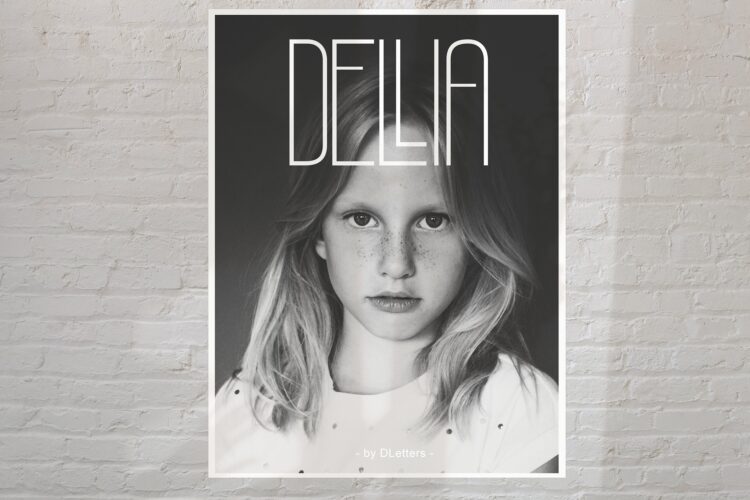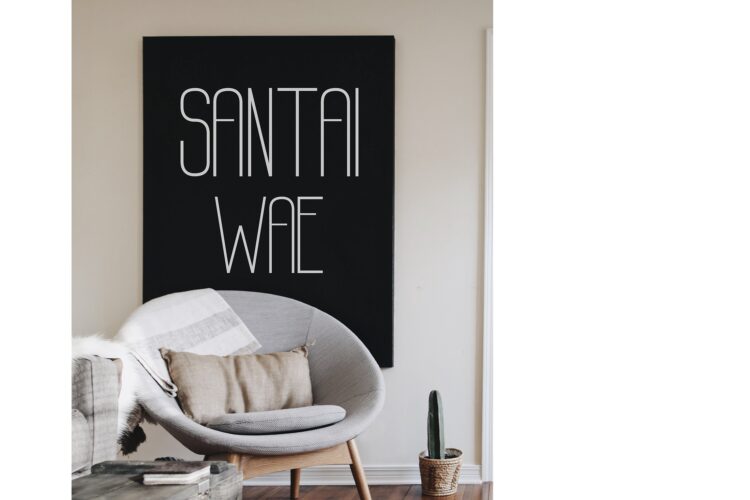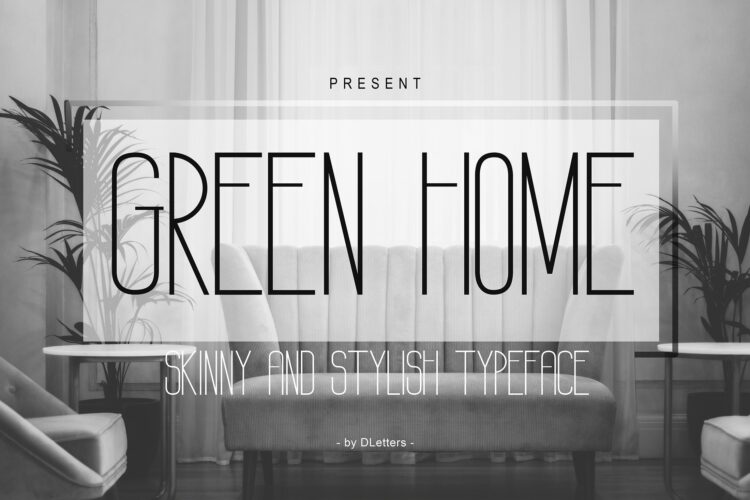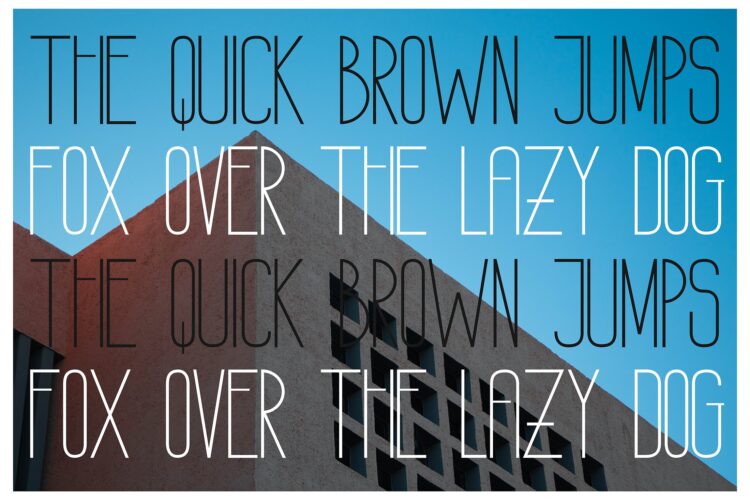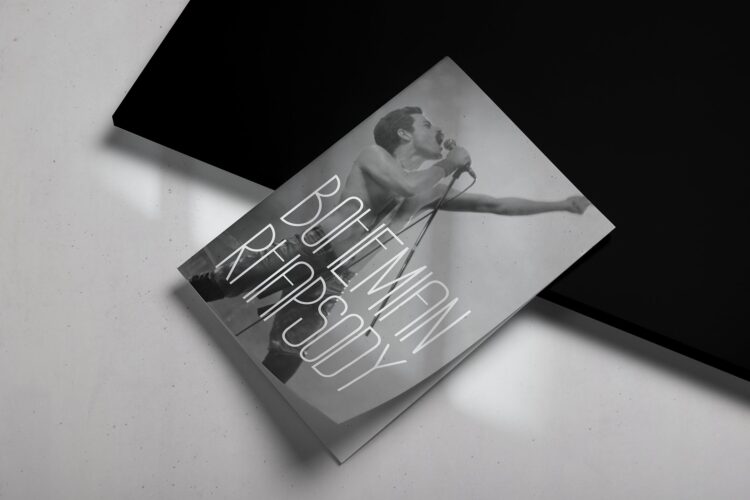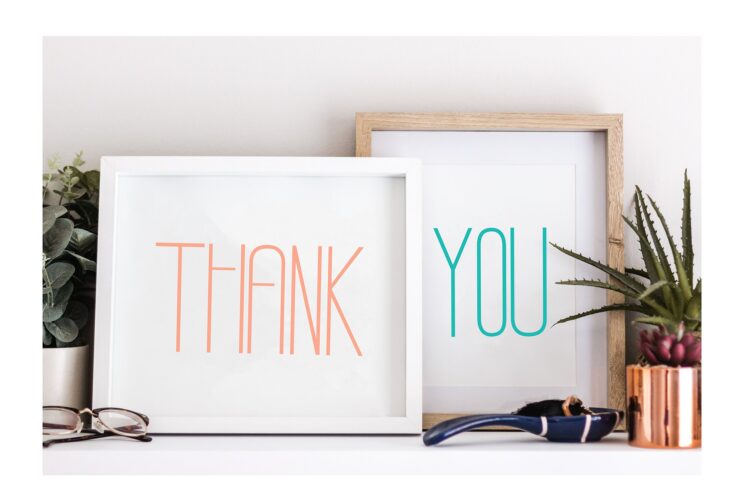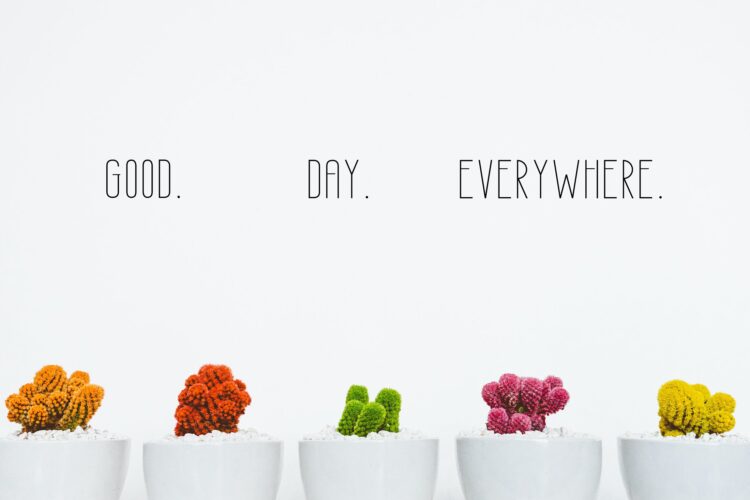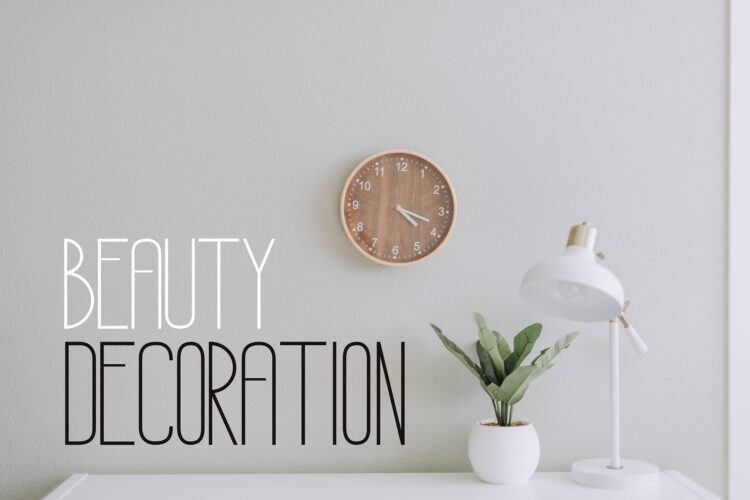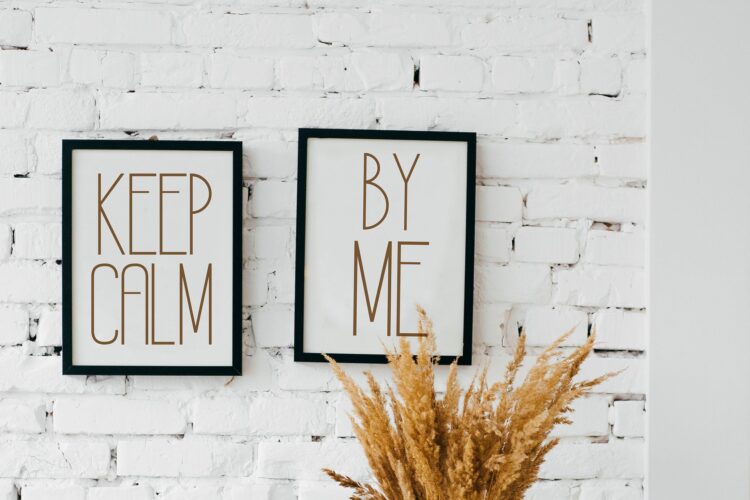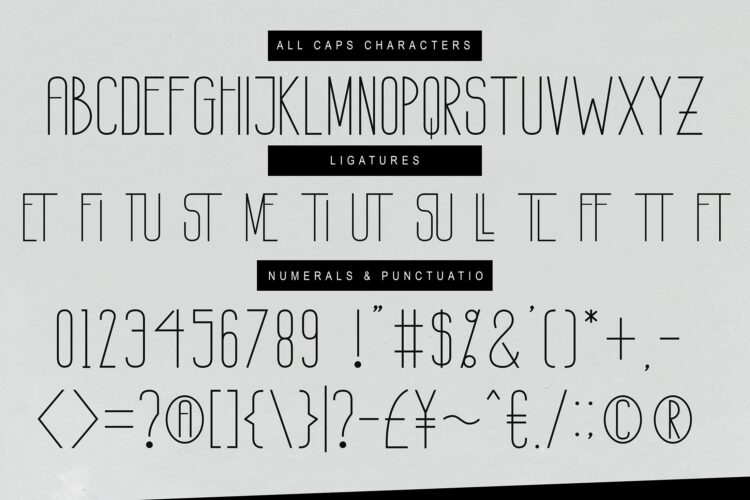
green home sans serif font
Hello, This GREEN HOME Sans Serif font, has a Skinny, Stylish, and elegant Shape is perfect for your design ideas with the theme of Home Decorating, Home Idea, and is also very suitable as a complementary font for any of your photography and creative works.
• Ligature